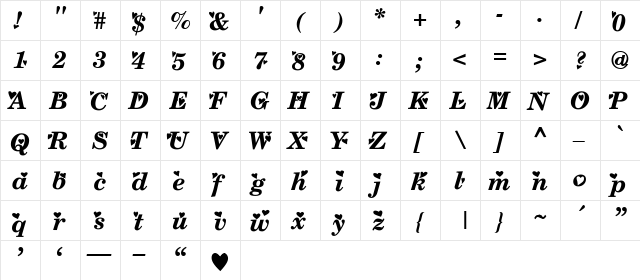
Times New Romance Bold Italic Font Preview
Design Context for Times New Romance Typeface
Times New Romance offers clean, dependable letterforms without strong stylistic allegiance, making it a practical choice for designers who need flexibility. The dynamic lean of this cut emphasises speed and emphasis in any layout. The heavy weight commands attention and anchors typographic hierarchies.
Pro Tip: Try Times New Romance for annotation and caption copy alongside an upright companion — the contrast in angle creates a dynamic but ordered typographic system.